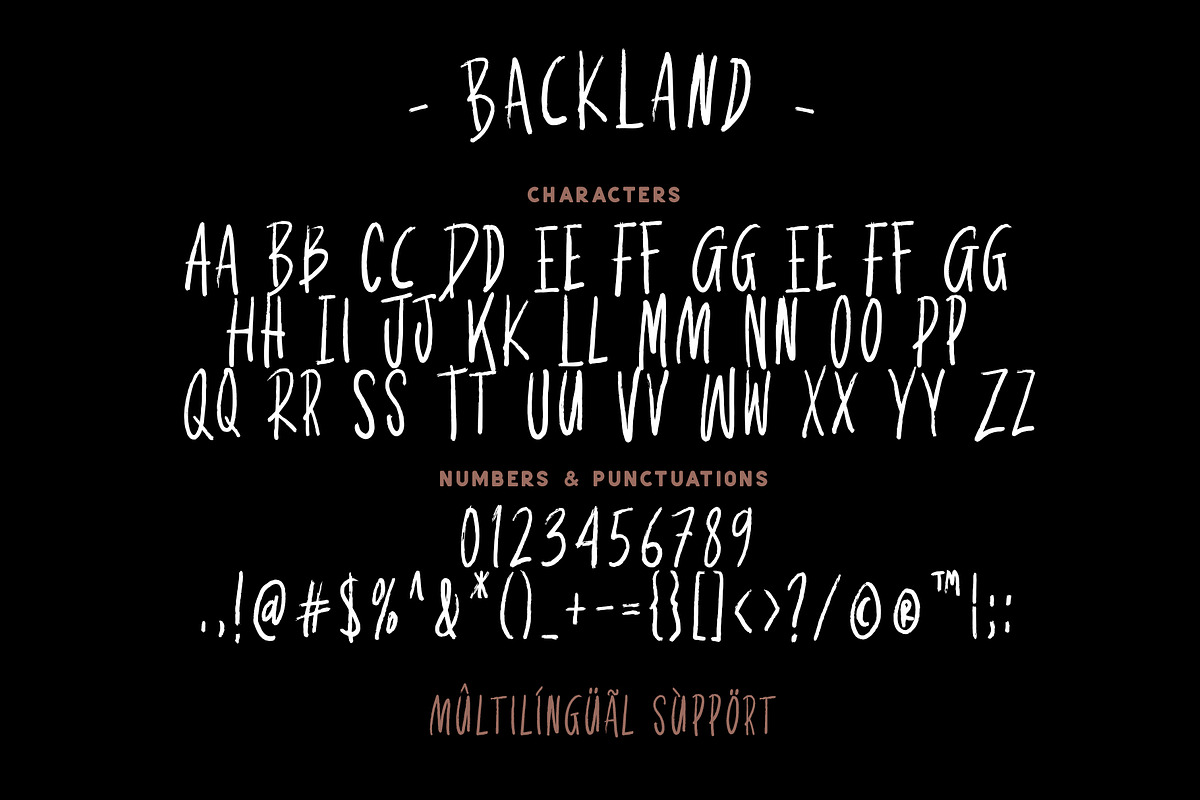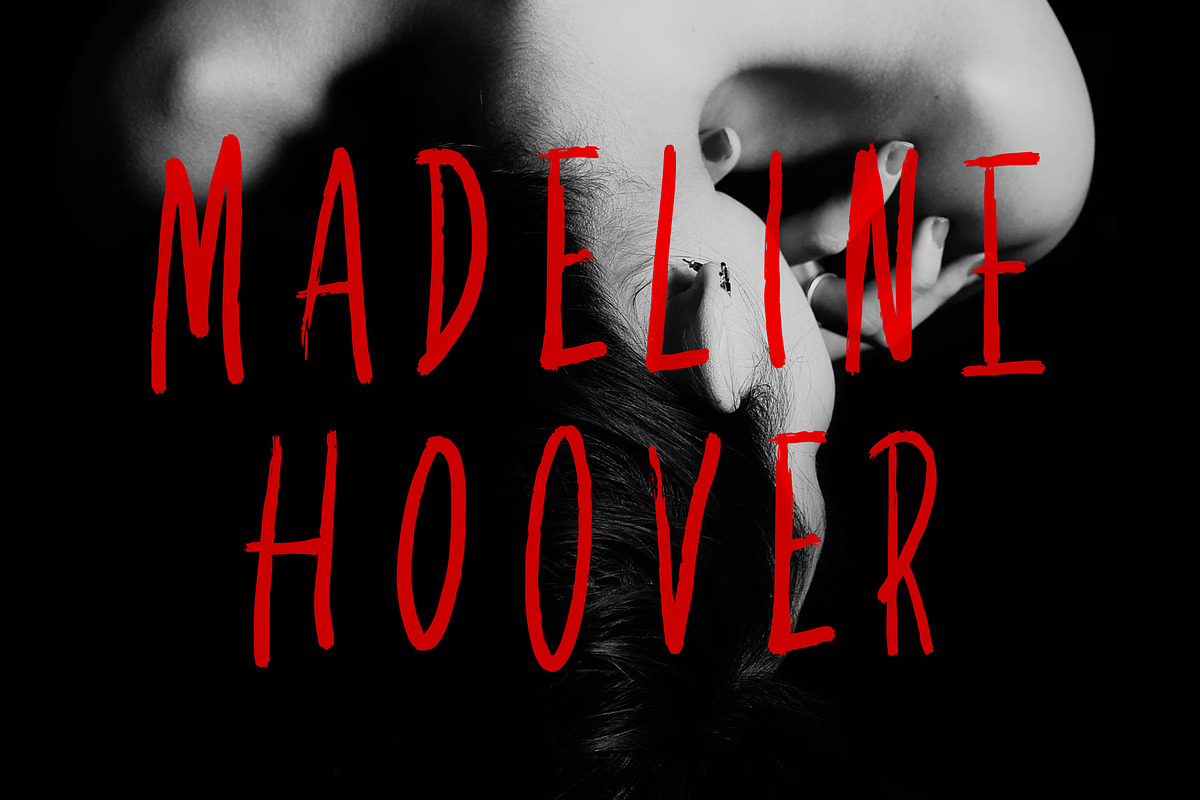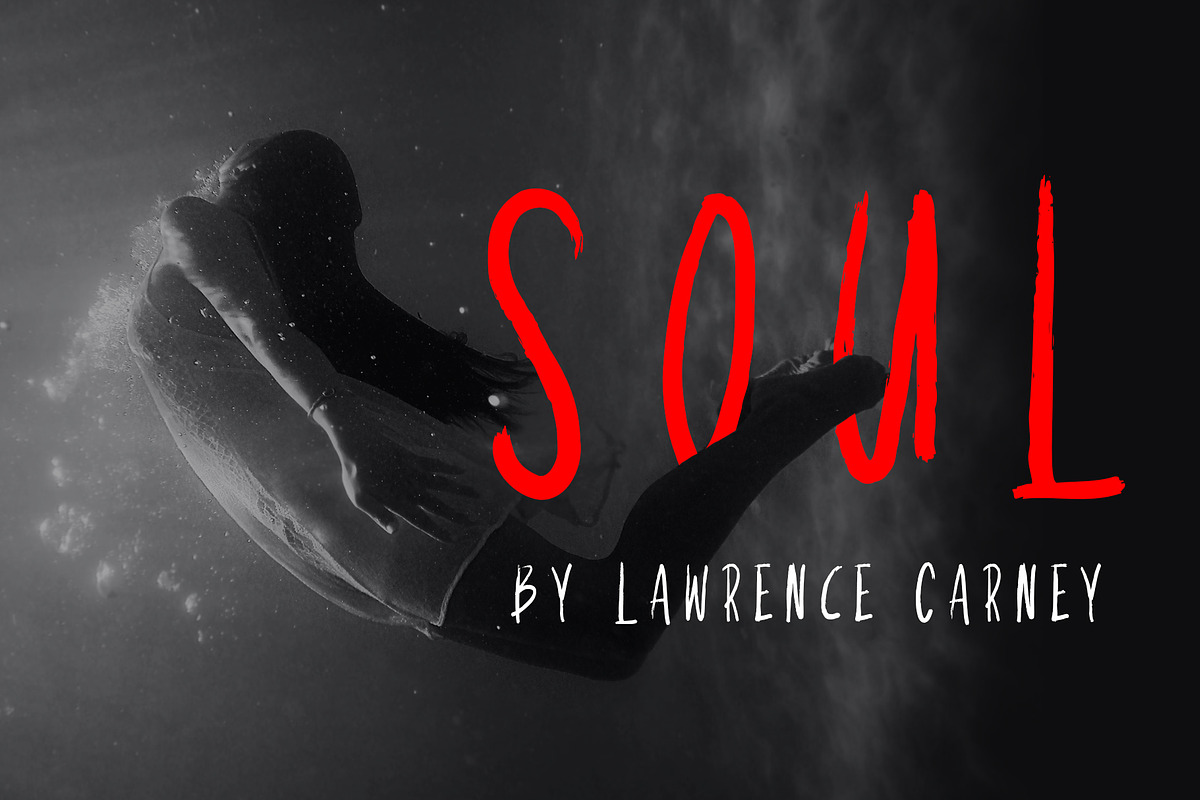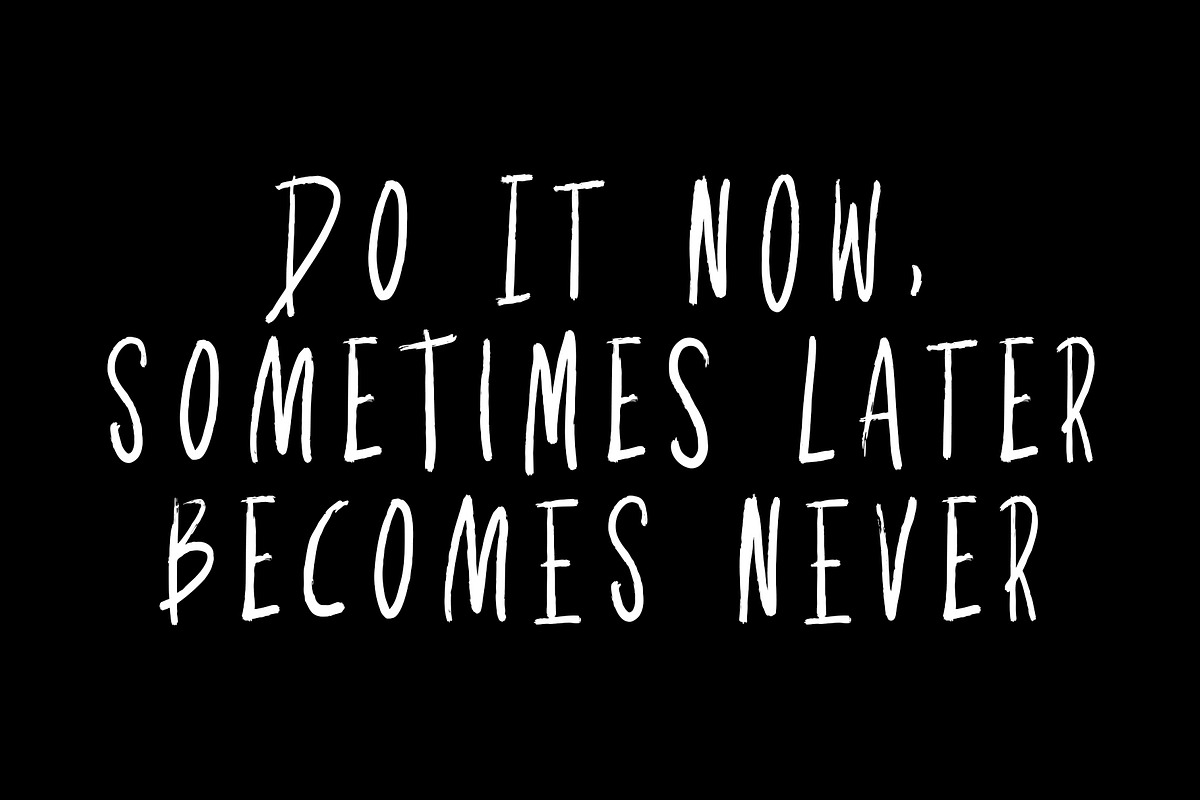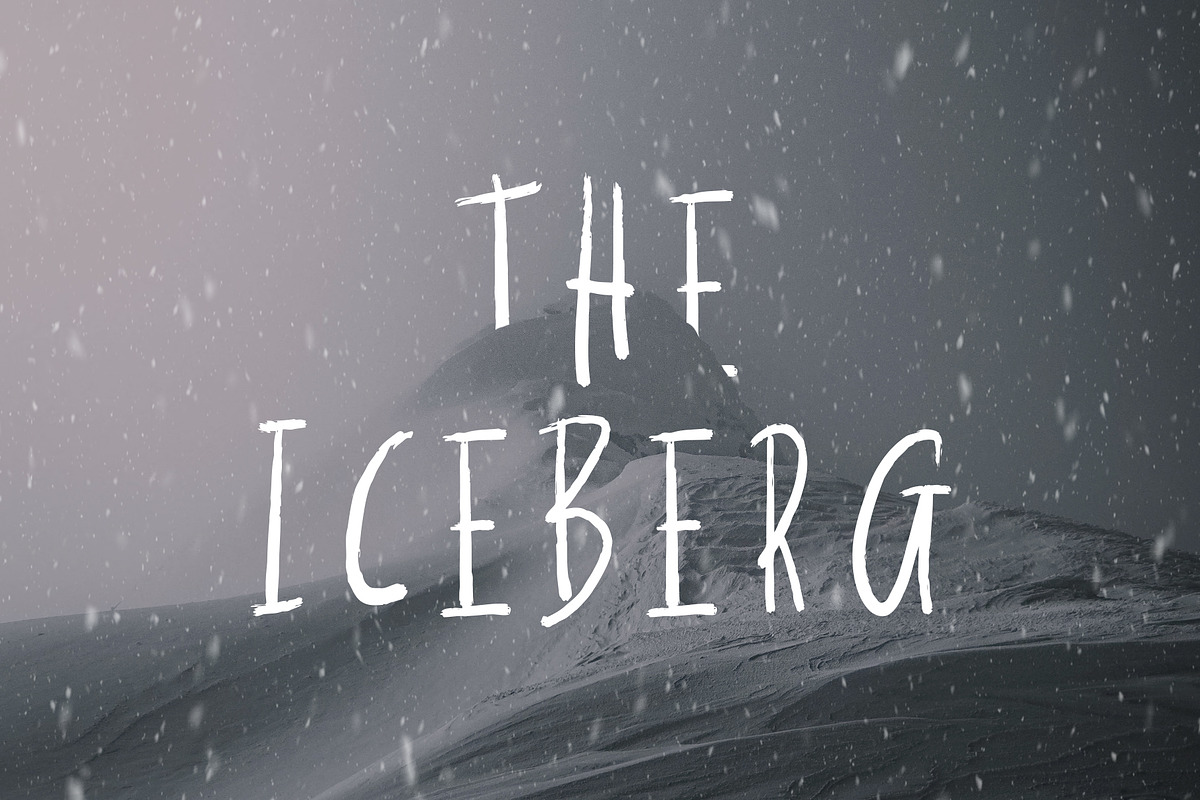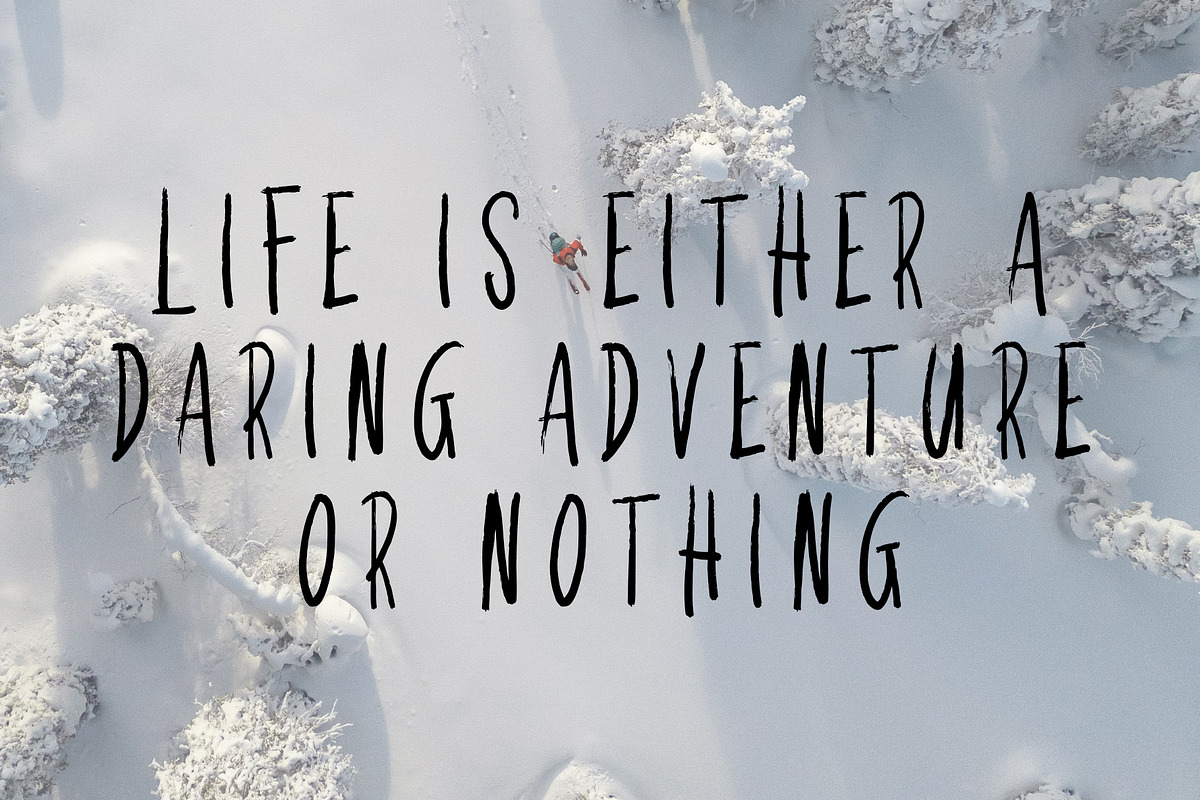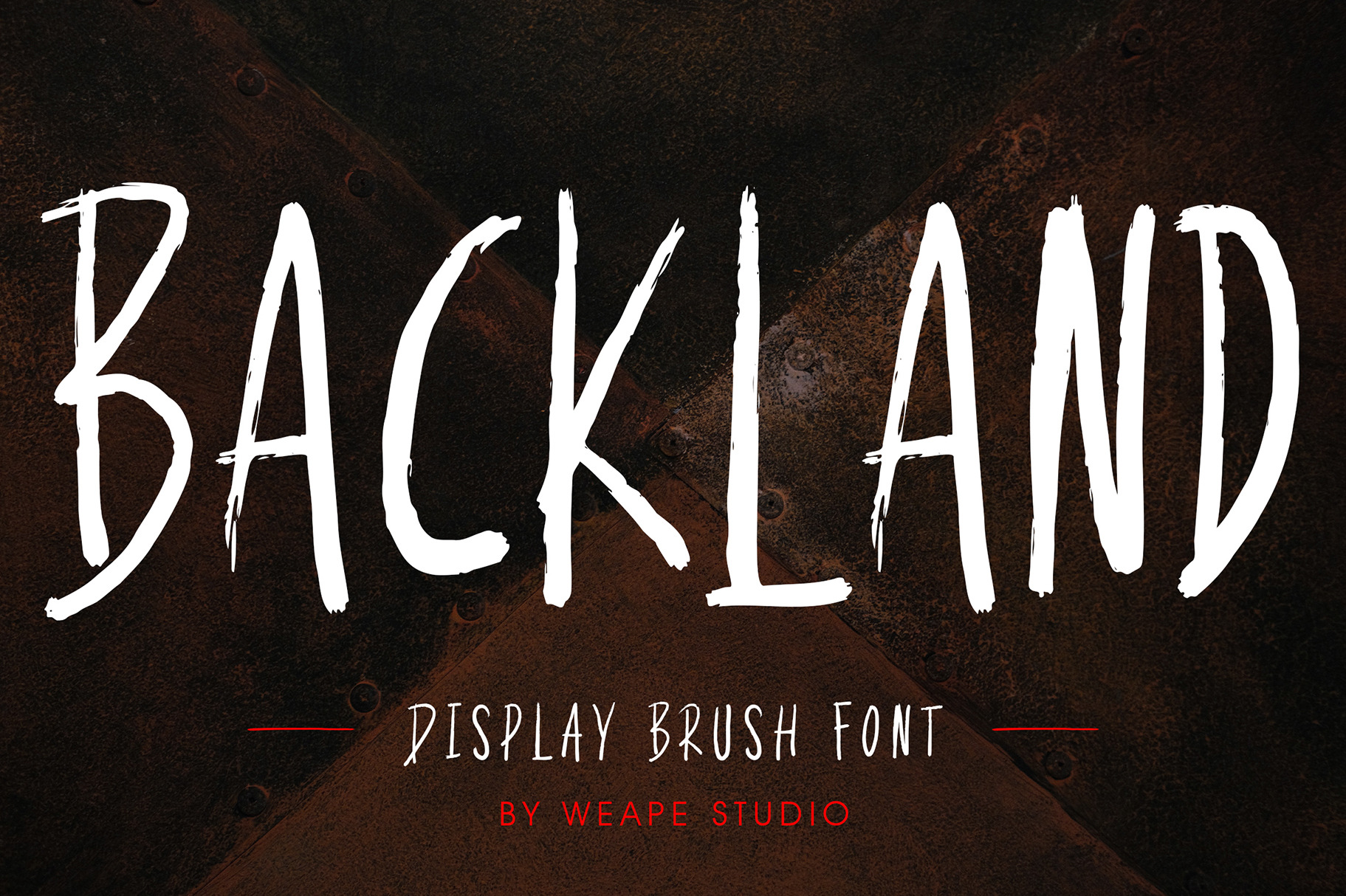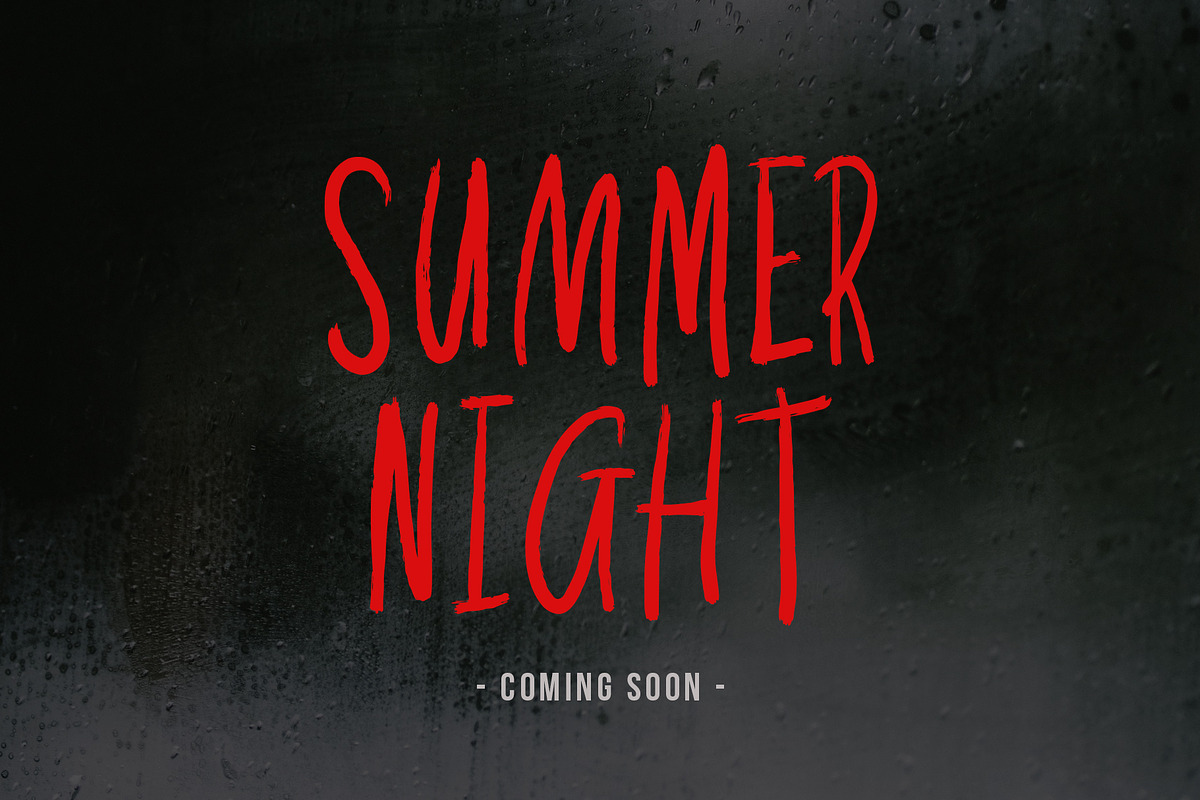
Backland - Display Brush Font
Introducing Backland - Display Brush Font, handwriting realistic brush font with all caps style. You can combine a unique uppercase and lowercase, so it looks like natural handwriting.
And this font is perfect for branding, poster, band, horror, helloween, apparel, title, social media post, ad banner, book cover, product packaging, handwritten quotes, and advertising.
- multilingual language